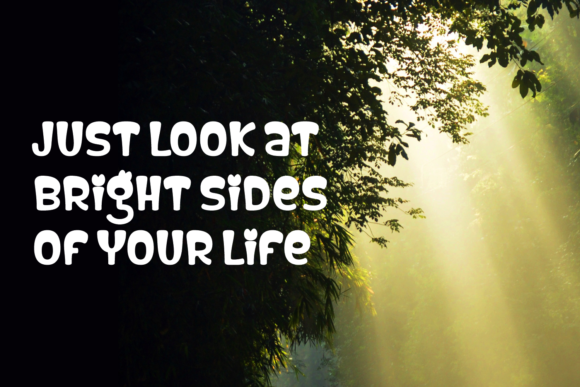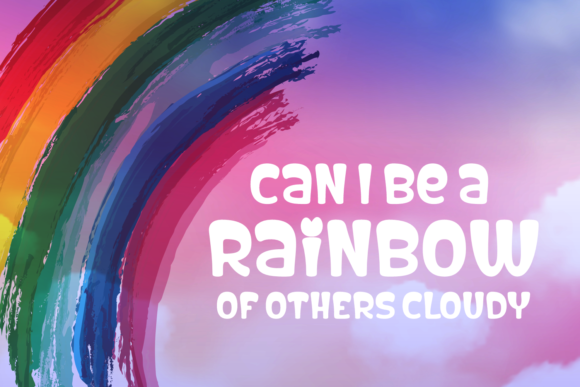
Head Up to the Sky Font
About Head Up to the Sky Font
Head Up to the Sky is a beautiful combination of timeless elegance and authentic calligraphy. It features an incredibly classic style, while still keeping a friendly feel. Use this amazing handwritten font for making original and outstanding designs.